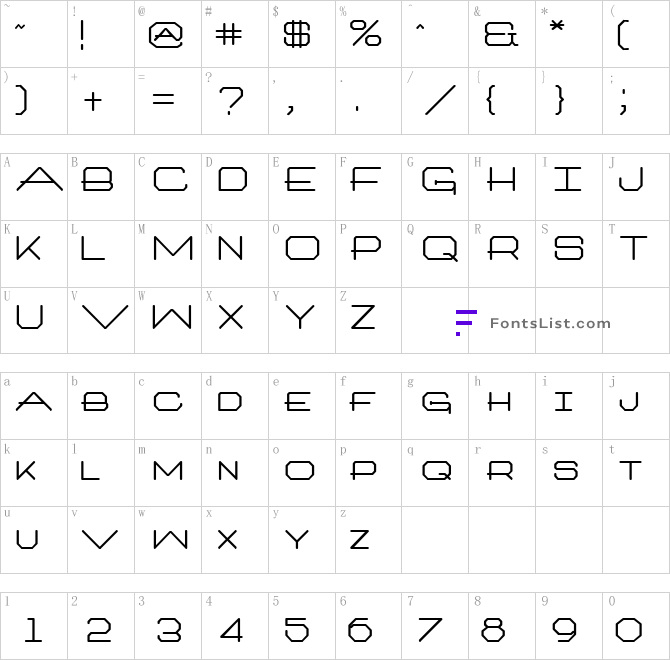
- Font Name:Artlookin
Artlookin-Bold-copy-2-.ttf is a very beautiful artistic font, Artlookin-Bold-copy-2-.ttf is widely used in the design and printing of various books and pictures,Artlookin-Bold-copy-2-.ttf has a strong visual impact,Artlookin-Bold-copy-2-.ttf is a commonly used font in newspapers, magazines and books, and is used in posters, e-commerce Poster design, store design, logo design, font design and other fields.Artlookin-Bold-copy-2-.